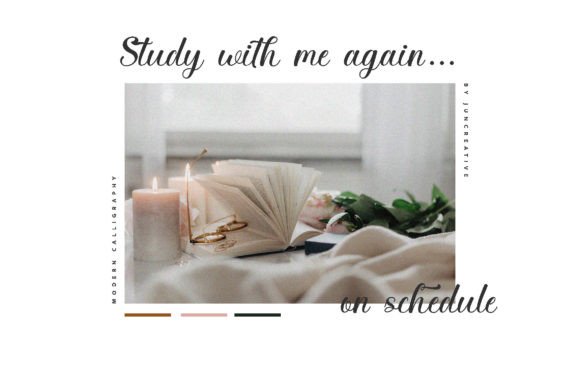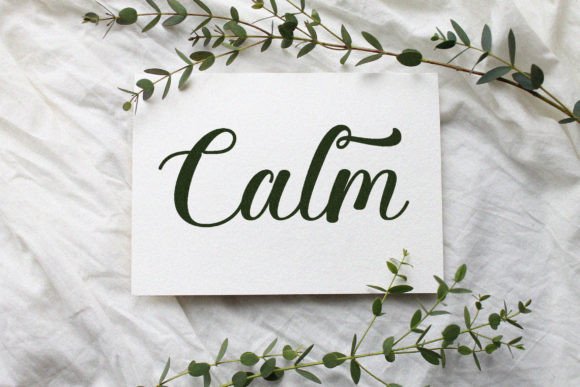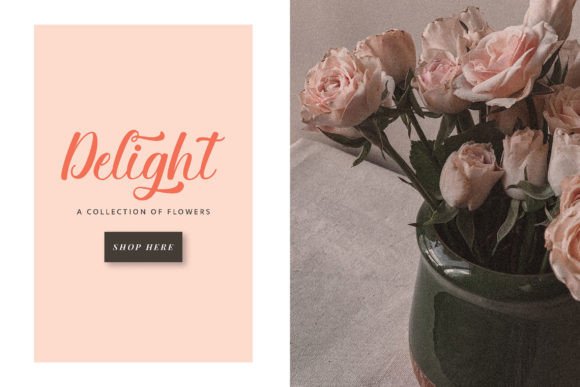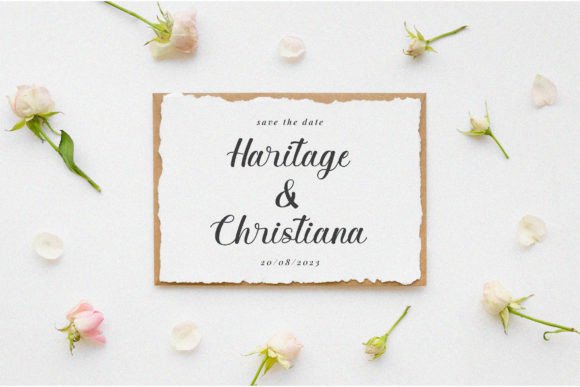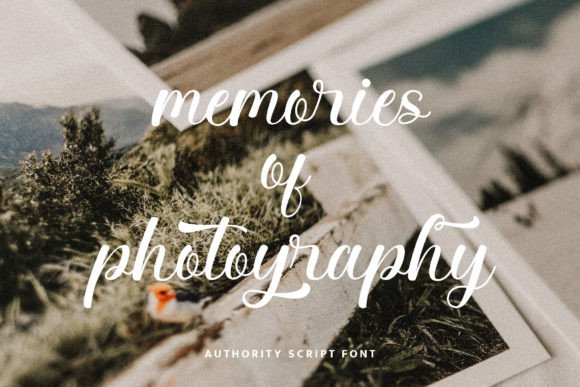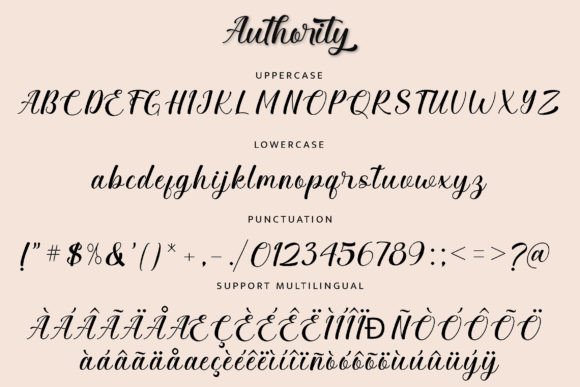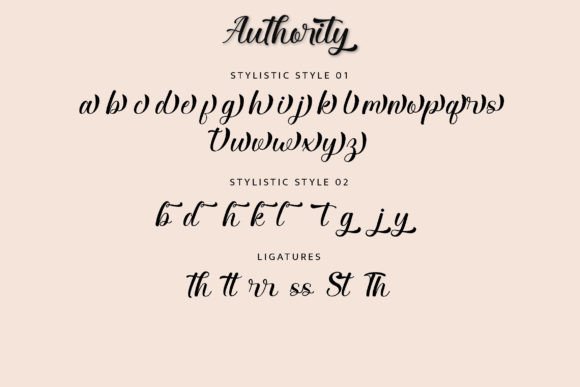
Authority Font
About Authority Font
**Authority** is an exquisite and elegant handwritten font that exudes a sense of sophistication and style, making it perfect for a wide range of creative projects. With its numerous alternate characters accessible through the glyphs panel, this font offers versatility and unique design possibilities. It is well-suited for branding, packaging, and various other creative endeavors.
This font’s elegance is reflected in its carefully crafted letterforms and graceful strokes. It adds a touch of class and refinement to your designs, making it ideal for projects that demand a sense of authority and sophistication. **Authority** enriches your creative work with its polished and distinctive appearance.
The availability of alternate characters in the glyphs panel expands your creative horizons, allowing you to customize and personalize your designs further. This feature adds versatility to **Authority**, making it suitable for branding projects, where unique typography can set your brand apart, and packaging designs, where attention to detail matters.
What sets **Authority** apart is its ability to convey a sense of elegance and authority in your designs. It invites your audience to appreciate the refined craftsmanship behind your projects, leaving a lasting impression of sophistication and professionalism. With **Authority** as part of your creative toolkit, you have the means to craft designs that stand out for their classic beauty and enduring appeal.
In conclusion, **Authority** is an elegant and sophisticated handwritten font that offers versatility through its alternate characters, making it perfect for branding, packaging, and various design projects. Embrace its polished letterforms and refined style to create stunning and authoritative designs that leave a lasting impact. With **Authority** at your disposal, your creative possibilities are endless, allowing you to craft exquisite and memorable works of art with ease.